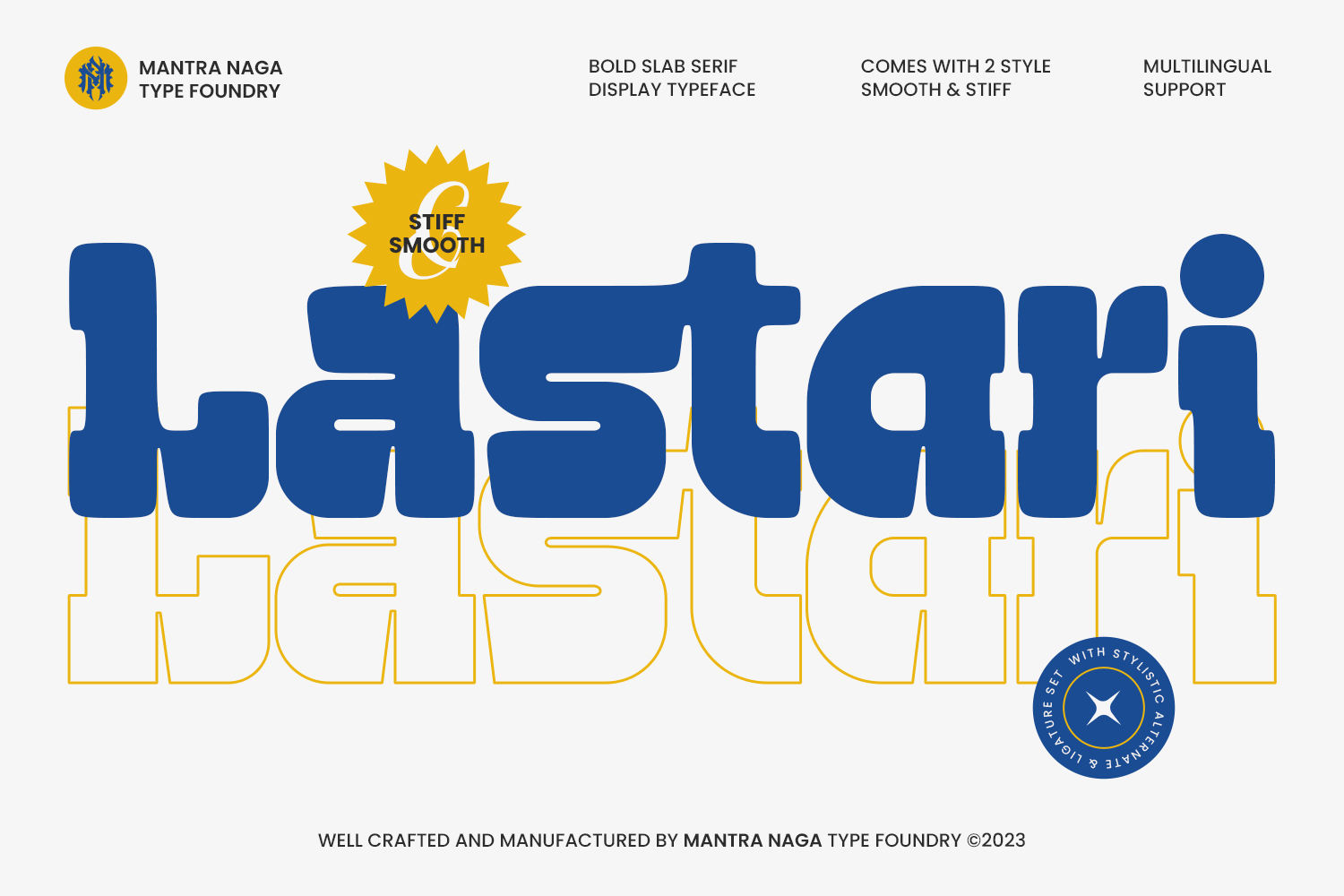
Lastari Font
Designed by Mantra Naga Studio
About Lastari
Lastari is a bold representation of bold slab serif style, offering two versions of the font, each with unique characteristics: smooth corners for a soft touch, and stiff corners for a bold impression. Ideal for stickers and news headlines, this typeface combines robust design with boldness. With a collection of 405 glyphs, this font not only conveys a strong message, but also provides flexibility of expression through its OpenType features which include alternative characters and ligatures. Support for 88 international languages makes Lastari an inevitable choice for global design projects, striking the perfect balance between modern sharpness and impressive classic touches.